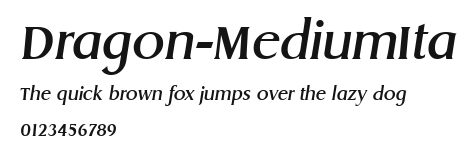
• Font Name: Dragon-MediumIta
• Full Font Name: Dragon-MediumIta
• PostScript Name: Dragon-MediumIta
Dragon-MediumIta.ttf is a modern, elegant sans-serif font designed for ultimate readability and visual harmony. Perfect for branding, headlines, web design, and print materials.